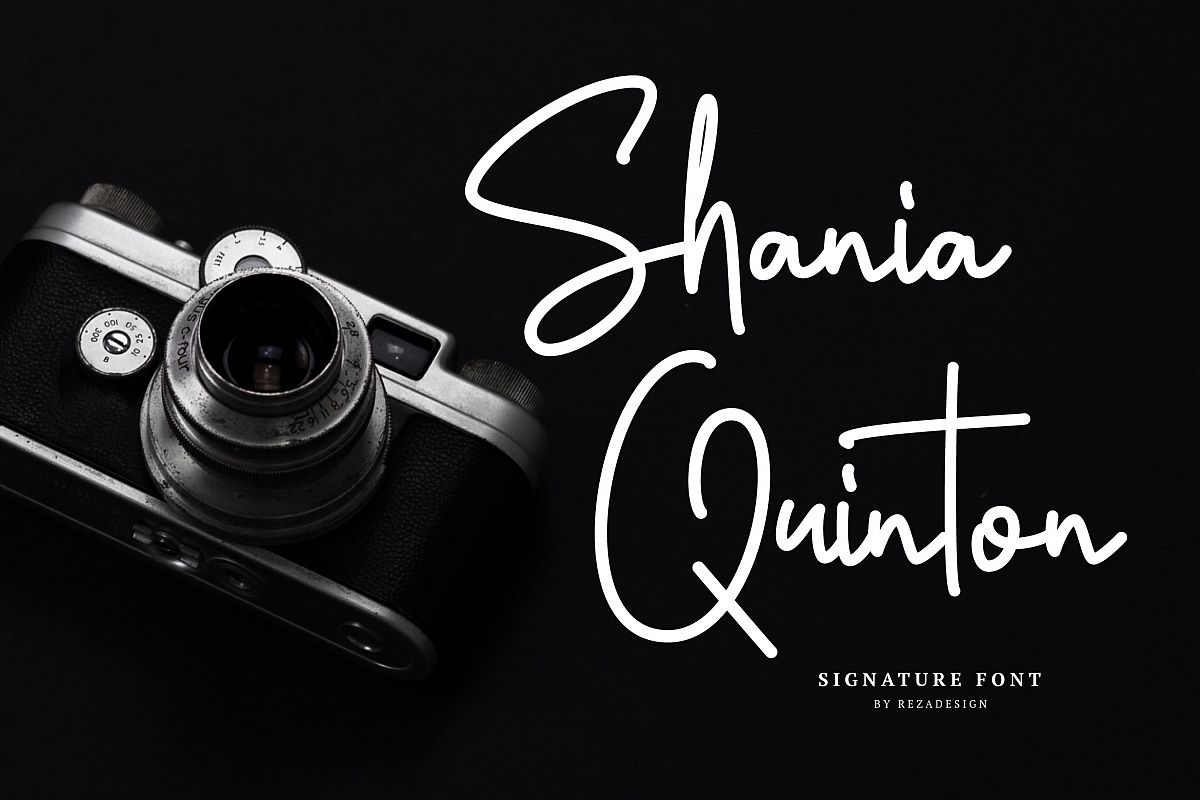
Shania Quinton Font
Shania Quinton
Shania Quinton is a unique signature script font crafted very carefully by Rezadesign. Shania Quinton is perfect use for a logo for branding, typography design, product packaging, invitation, quotes, t-shirt design, label poster, special events and anything that need handwriting taste.
Feature :
- Ton of glyphs ( include Uppercase, Lowercase, Numerals, Punctuations & Ligatures )
- Multilingual Language
Multilingual :
ÁÂÄÀÅÃÆÇÉÊËÈÍÎÏÌÐÑÓÔÖÒÕØŒÚÛÜÙẂŴẄẀÝŶŸỲÞŁ ß áâäàåãæçéêëèíîïìðñóôöòõøœúûüùẃŵẅẁýŷÿỳþł